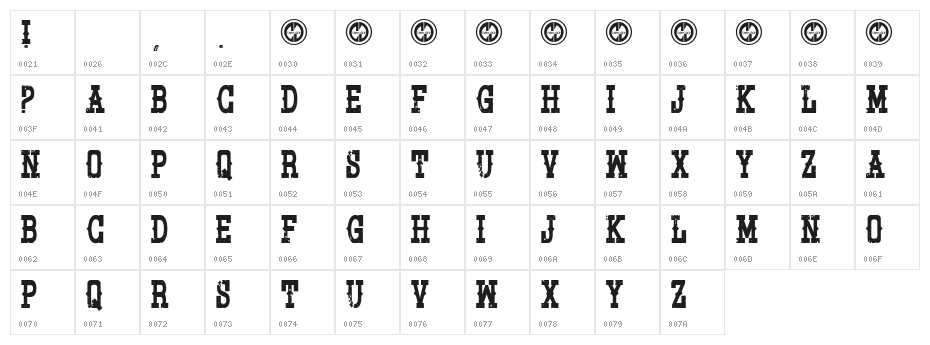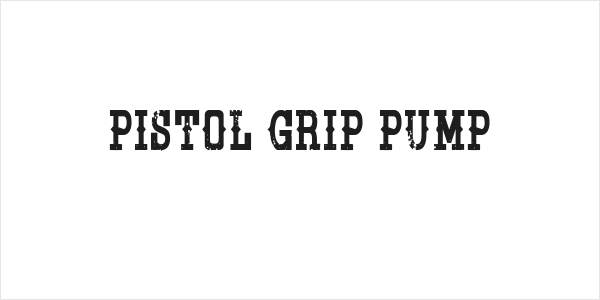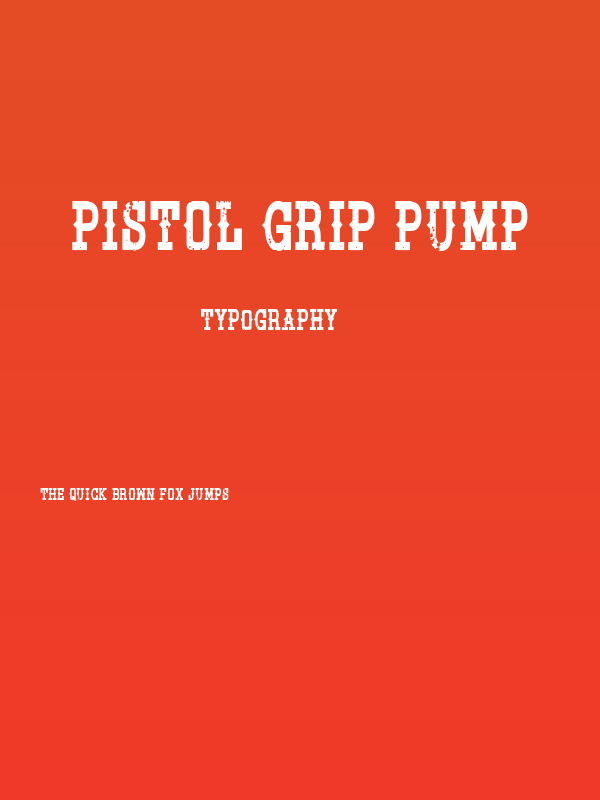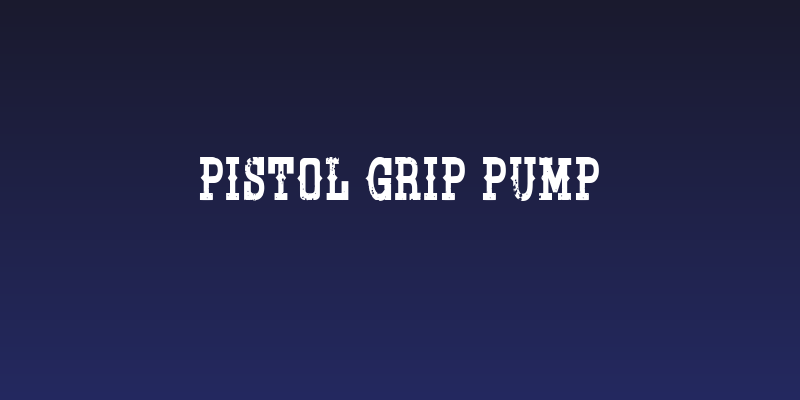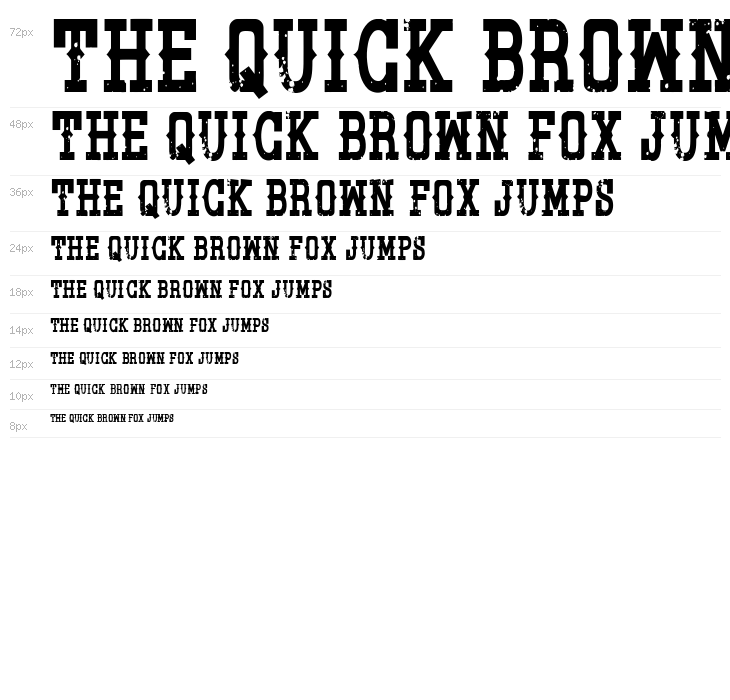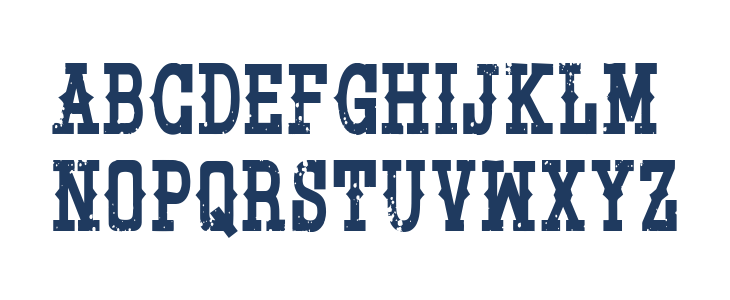
Pistol Grip Pump Font
Pistol Grip Pump Description
This font features a bold, distressed style with a rugged, vintage appeal. The uppercase letters are characterized by a strong, blocky structure with rough, textured edges that give a worn, weathered look. The design suggests a sense of strength and durability, reminiscent of industrial or military aesthetics. The font's distressed appearance adds a layer of authenticity and character, making it suitable for projects that aim to convey a sense of history or toughness. The spacing between characters is normal, allowing for readability while maintaining its bold presence.